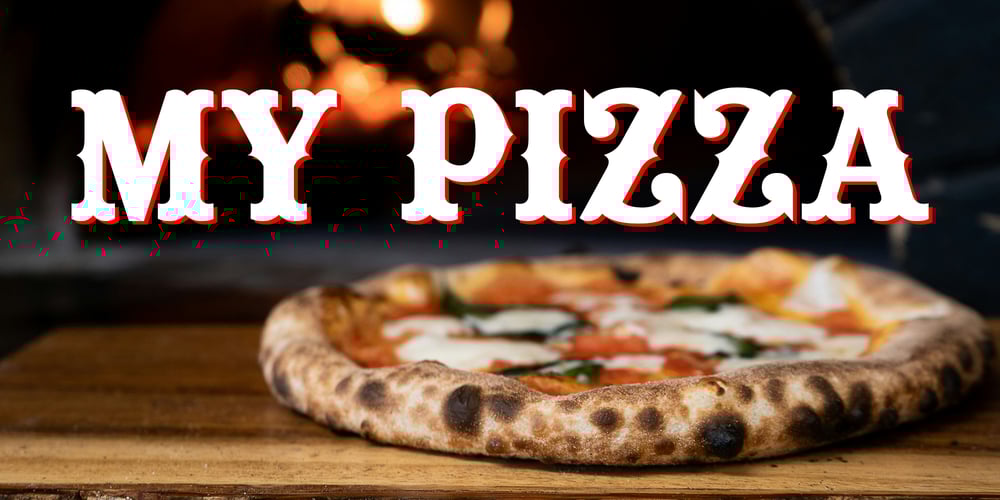
My Pizza
My Pizza font
My Pizza Font Family was designed by Michael Hagemann and published by FontMesa. My Pizza contains 2 styles and family package options. My Pizza is our latest addition to our collection of western style fonts.My Pizza was patterned after the sign logo for an old pizzeria called the Organ Grinder Pizza company located in Portland Oregon. Organ Grinder Pizzeria was a place where you could enjoy your favorite pizza and listen to music played on a large pipe organ.The original sign logo was hand drawn by a local sign making company based on 1870’s spurred western style type fonts.While the Organ Grinder Pizza company is no longer in business a new documentary is in production about this old pizzeria.My Pizza is a trademark of Fontmesa LLC